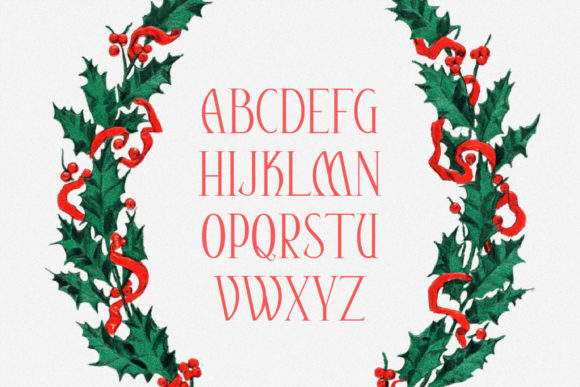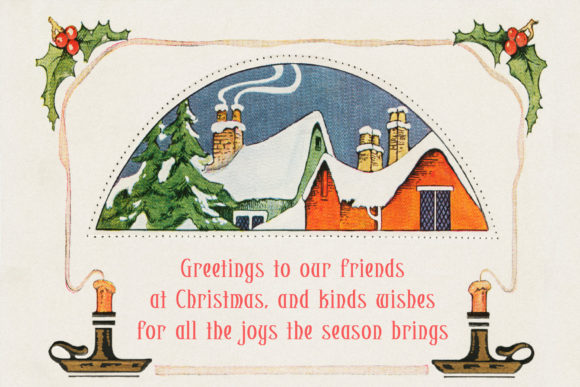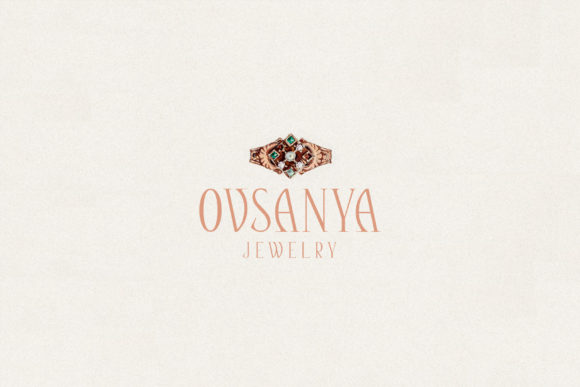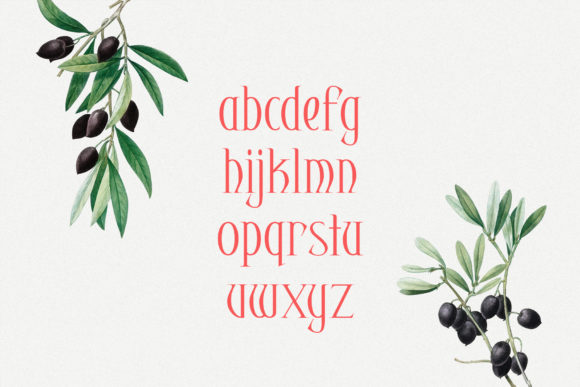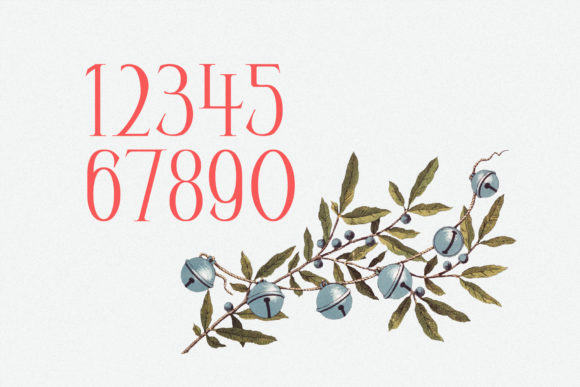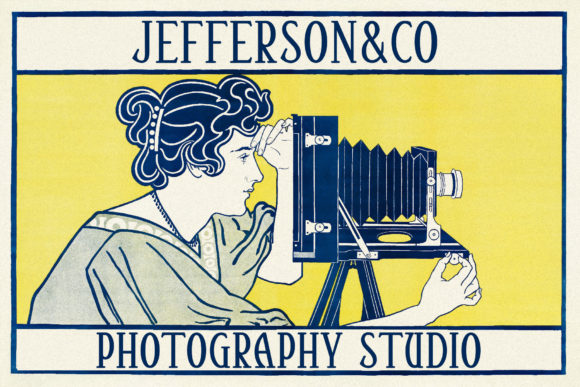
Introducing Harmonia Font: Elevate Your Design with Elegance
Are you a designer or crafter looking for a font that exudes sophistication and refinement? Look no further than Harmonia Font, a clean and elegant serif font designed to elevate your branding, art, and design projects. In this article, we’ll explore the features and benefits of Harmonia Font, and how it can be used to create stunning visual experiences.
What is Harmonia Font?
Harmonia Font is a carefully crafted serif font that boasts a clean and elegant aesthetic. Its classic design makes it an ideal choice for high-end branding, art quotes, home decor, book covers, special events, magazines, product packaging, invitations, and more. Whether you’re working on a luxury brand campaign or a creative project, Harmonia Font is sure to impress.
Key Features of Harmonia Font
- Clean and Elegant Design: Harmonia Font features a sleek and refined design that adds a touch of sophistication to any project.
- Serif Font: The font’s serif design adds a level of classic elegance, making it perfect for high-end branding and luxury projects.
- Versatile: Harmonia Font can be used in a wide range of applications, from print to digital media.
- Easy to Read: The font’s clear and legible design ensures that your message is conveyed with ease.
Use Cases for Harmonia Font
Harmonia Font is an incredibly versatile font that can be used in a variety of contexts. Here are some examples of how you can use Harmonia Font to elevate your design:
- High-End Branding: Use Harmonia Font to create luxurious brand identities that exude sophistication and refinement.
- Art Quotes: Add a touch of elegance to your art quotes with Harmonia Font, perfect for showcasing on social media or in galleries.
- Home Decor: Use Harmonia Font to create beautiful typography for home decor projects, such as wall art, invitations, and stationery.
- Book Covers: Harmonia Font is an excellent choice for book covers, adding a level of sophistication and elegance to your design.
- Special Events: Create stunning invitations, programs, and signage for special events, such as weddings, galas, and conferences.
- Magazines: Use Harmonia Font to create visually appealing magazine layouts that showcase your content in style.
- Product Packaging: Elevate your product packaging with Harmonia Font, perfect for luxury brands and high-end products.
- Invitations: Create beautiful invitations for special occasions, such as weddings, baby showers, and birthday parties.
Why Choose Harmonia Font?
With so many fonts available, why choose Harmonia Font? Here are just a few reasons why Harmonia Font stands out:
- Unique Design: Harmonia Font features a unique and distinctive design that sets it apart from other serif fonts.
- High-Quality: The font is crafted with attention to detail, ensuring a high-quality design that looks great in any context.
In conclusion, Harmonia Font is a stunning serif font that offers a clean and elegant design perfect for high-end branding, art quotes, home decor, book covers, special events, magazines, product packaging, invitations, and more. With its versatile design, ease of use, and high-quality craftsmanship, Harmonia Font is an excellent choice for designers and crafters looking to elevate their design projects. Whether you’re working on a luxury brand campaign or a creative project, Harmonia Font is sure to impress.